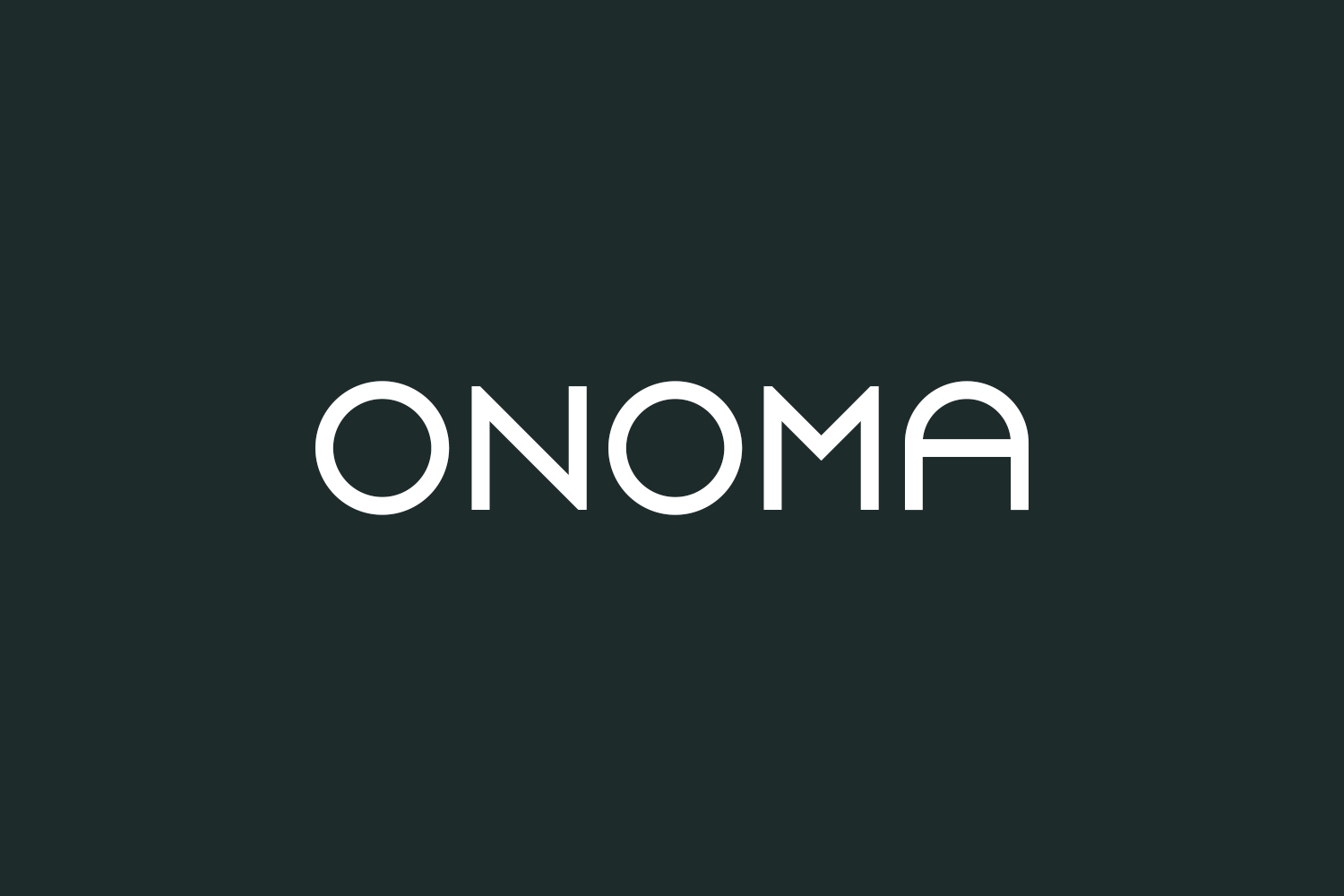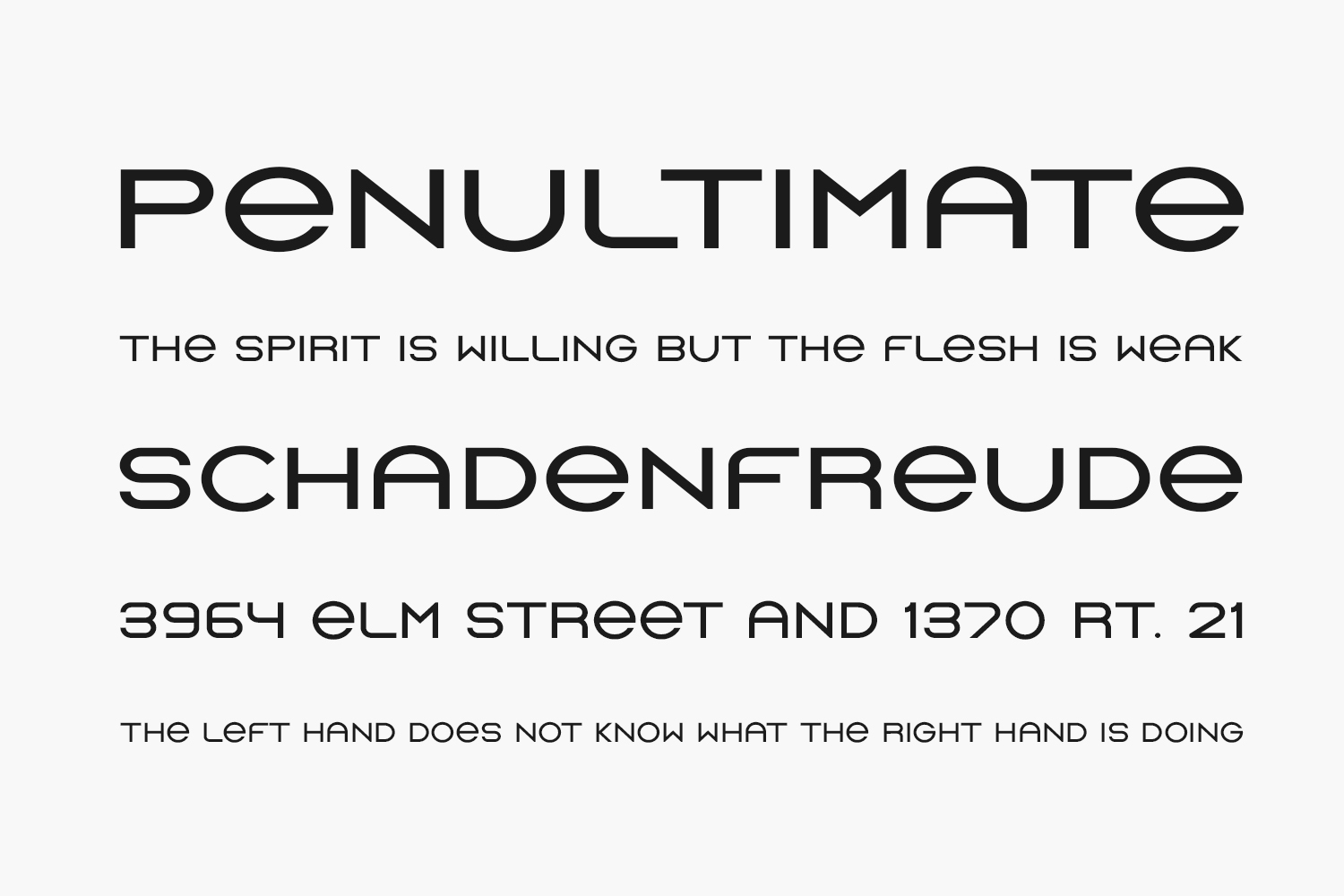
Onoma Free Font – Minimalist Sans Serif for Clean & Modern Design
Onoma is a clean, minimalist sans-serif font designed by Victor Potet to bring clarity and modernity to your creative projects. With its geometric structure, balanced proportions, and neutral tone, this free typeface works perfectly for crafting sleek logos, digital interfaces, magazine headers, brand kits, and more. Available in OTF format — ideal for designers seeking a professional, readable font that enhances legibility without overpowering your layout.
Why Choose Onoma?
- Clean Geometric Style: Combines precision with simplicity for a contemporary, professional appearance.
- Ideal for UI & Editorial Design: Perfect for websites, app typography, or blog headers needing a crisp, modern look.
Where to Use Onoma?
Onoma shines across a variety of design applications:
- Logos & Brand Identities: Adds confidence to brand kits for tech startups, lifestyle blogs, or fashion labels needing a modern tone.
- Digital Interfaces: Ideal for web headers, landing page buttons, or mobile app text where clear communication is key.
- Editorial Headers: Stands out in blog titles, magazine covers, and advertising campaigns with a structured, elegant charm.
- Packaging Design: Enhances product tags on artisanal goods, clothing labels, or food packaging requiring a clean look.
- Social Media Graphics: Creates bold text overlays for Instagram Stories, TikTok videos, or YouTube banners with a stylish sans-serif presence.
Design Tips with Onoma
- Glyphs: 173 glyphs including uppercase (A-Z), lowercase (a-z), numerals, punctuation, and accented characters.